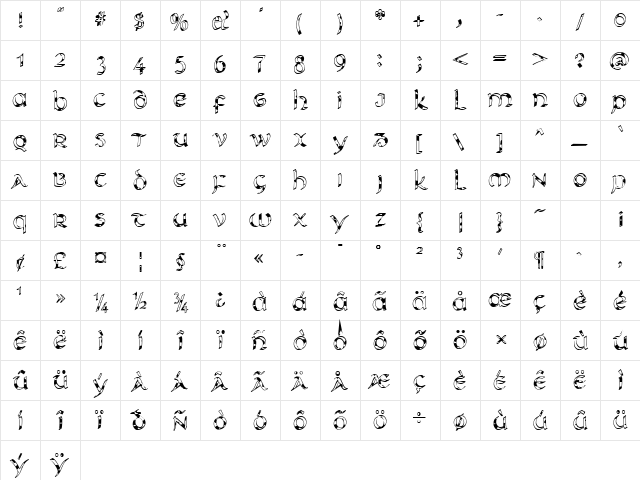
UnikledSpotted Regular Free Font
UnikledSpotted Regular
Design Context for UnikledSpotted
UnikledSpotted is a composed and adaptable typeface that performs quietly and consistently across a wide range of design contexts.